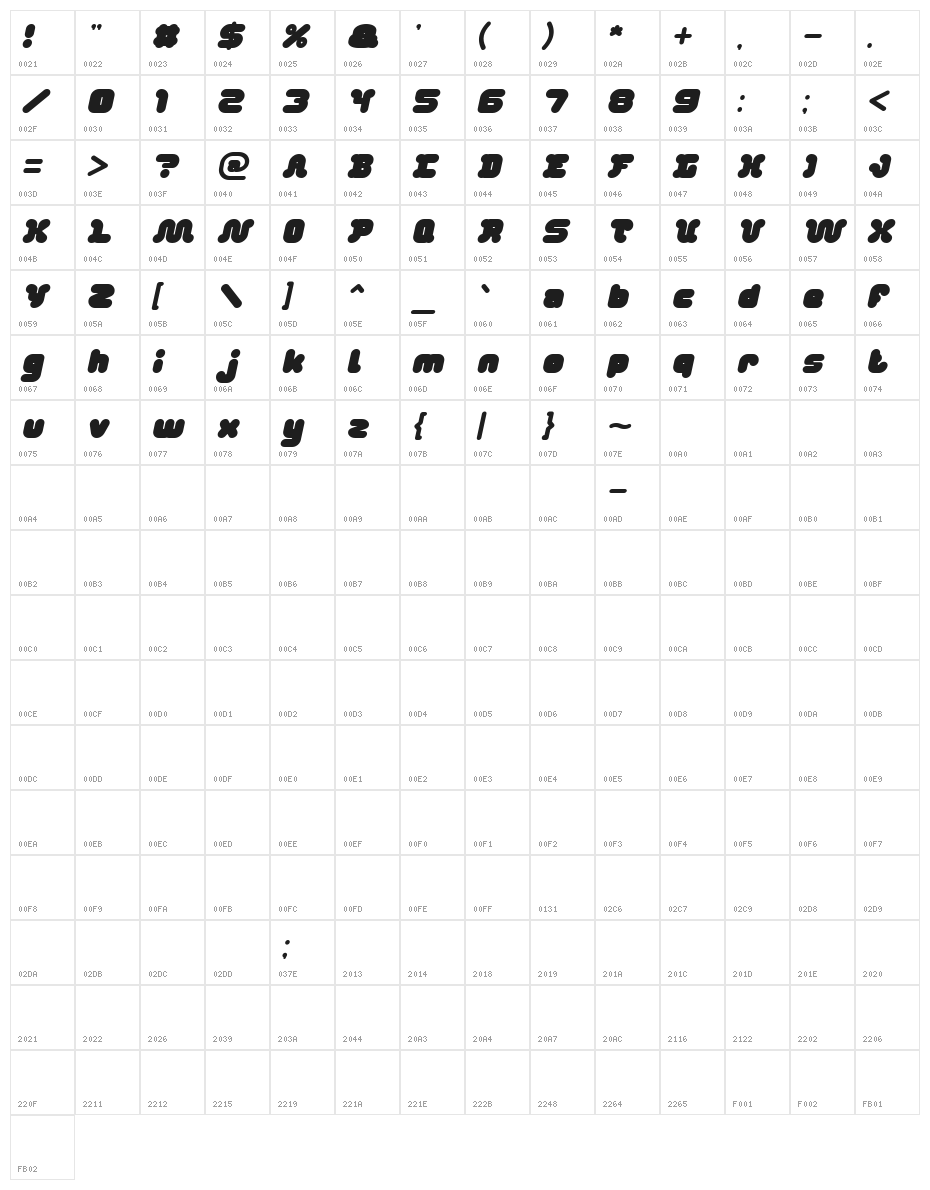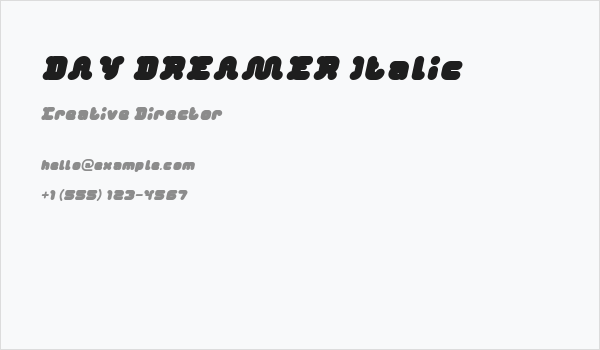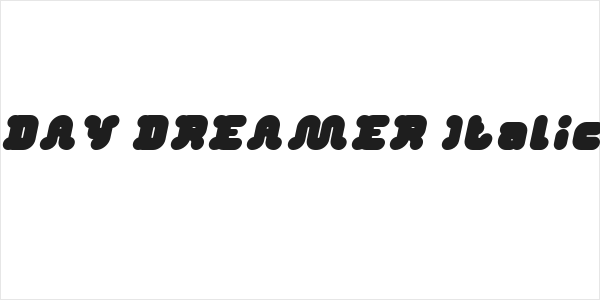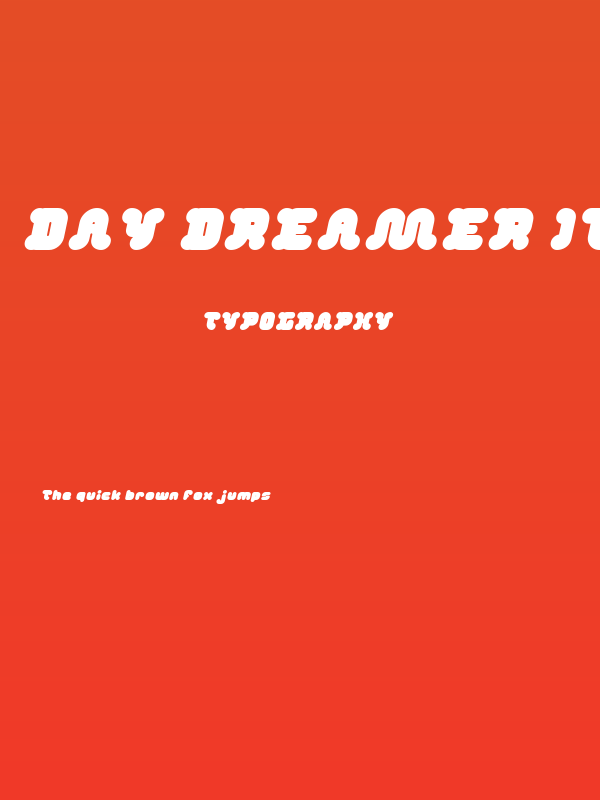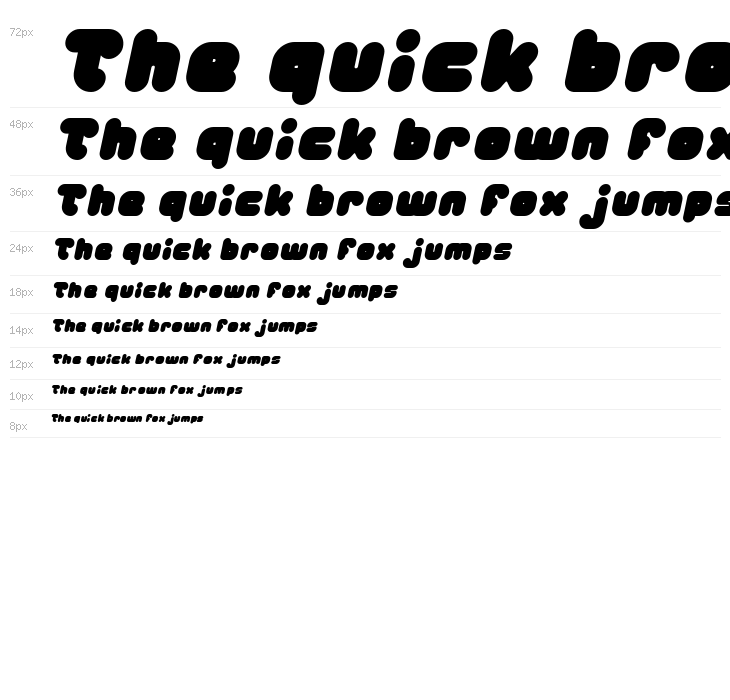
DAY DREAMER Italic Font
This font features a bold, rounded style with a playful and modern aesthetic. The characters are thick and have a smooth, flowing appearance, giving them a friendly and approachable feel. The rounded edges and consistent stroke width contribute to its cohesive look. The italic slant adds a dynamic and energetic touch, making it suitable for creative and informal applications. The font maintains a uniform weight throughout, ensuring readability while adding a touch of whimsy. Its unique style makes it stand out, perfect for projects that require a bold statement.
Proposed ProjectsIdeal for branding, posters, children's books, and playful graphic designs.